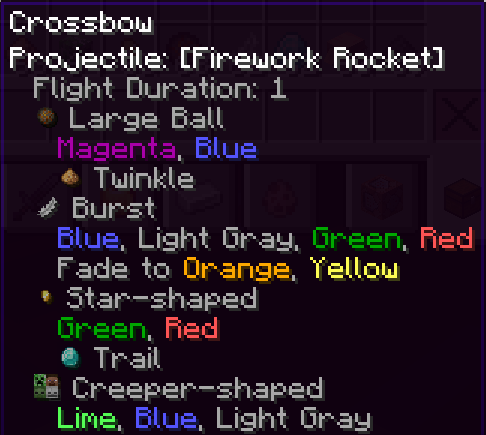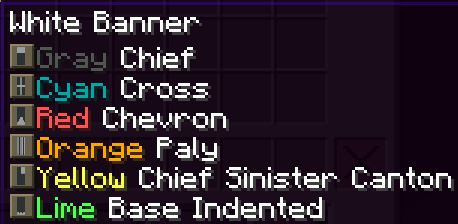
Font Trim
Fancy font and icons helpful on gameplay
Firework rockets icons
Some smithing template icons
Pottery sherds
now with item trimming used
Banner Pattern designs